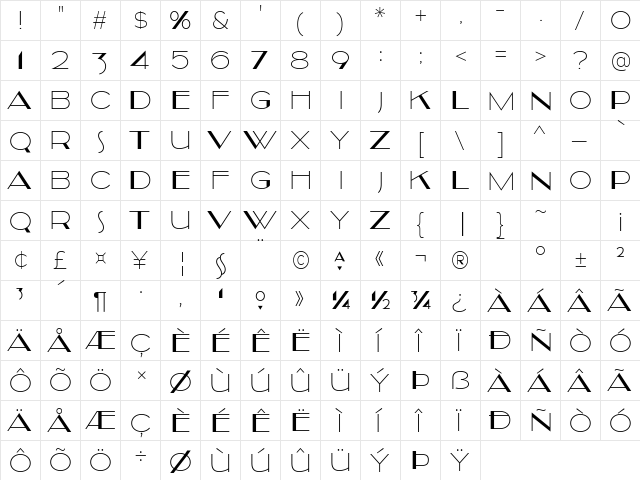
Kilsonburg Regular
Design Context for Kilsonburg Typeface
Kilsonburg is a composed and adaptable typeface that performs quietly and consistently across a wide range of design contexts.